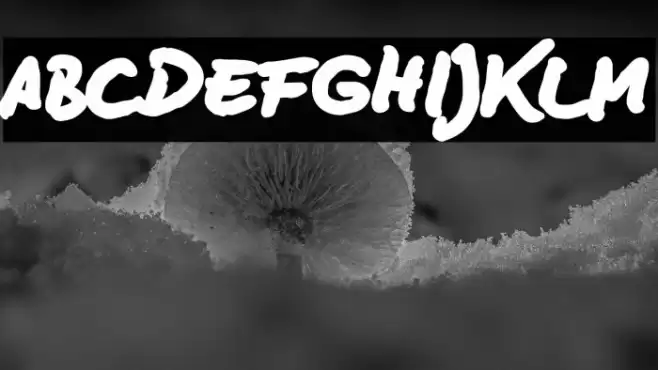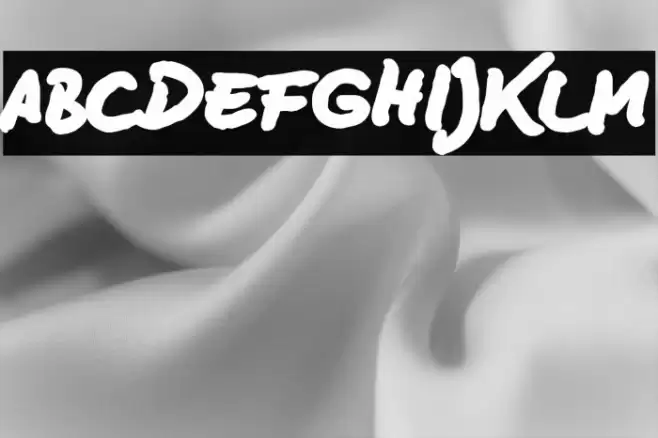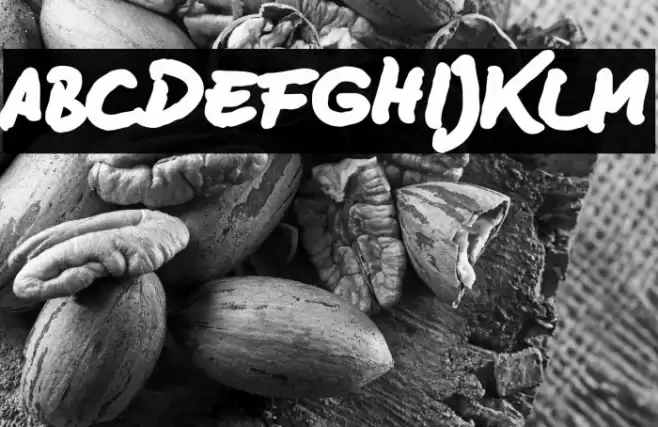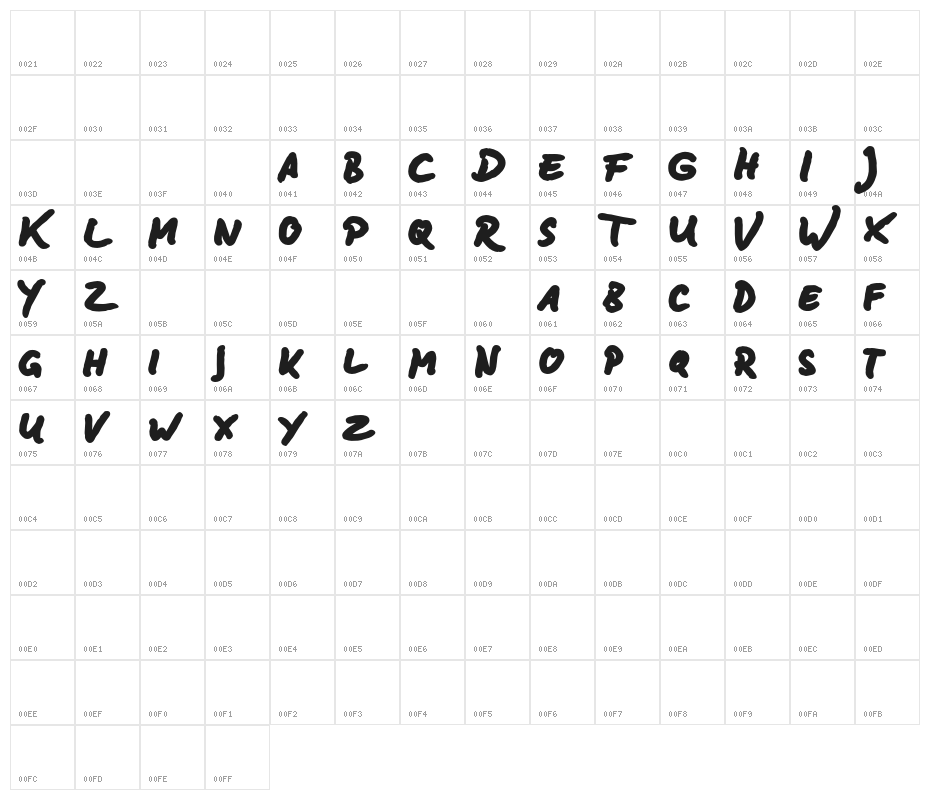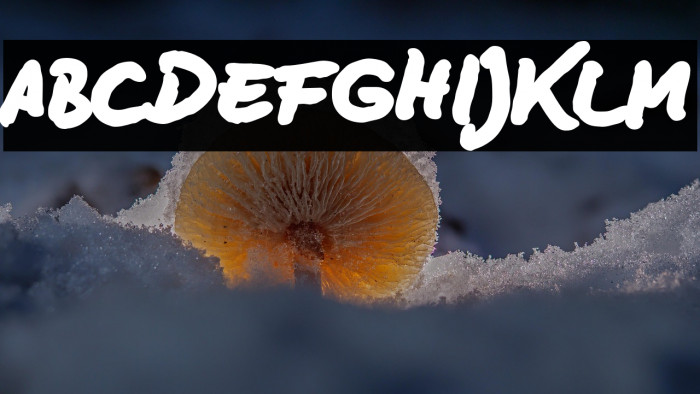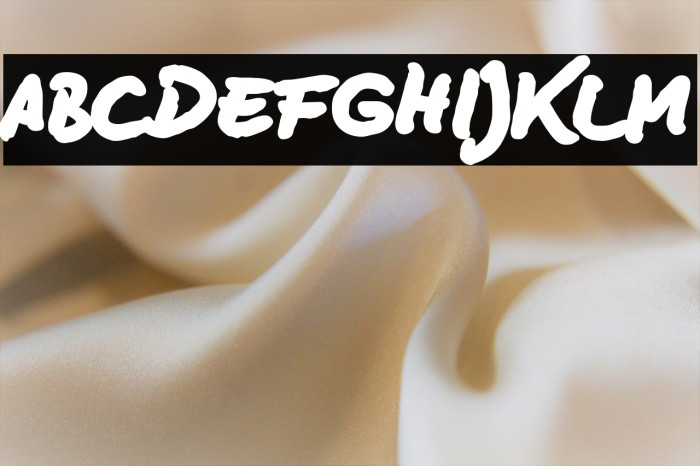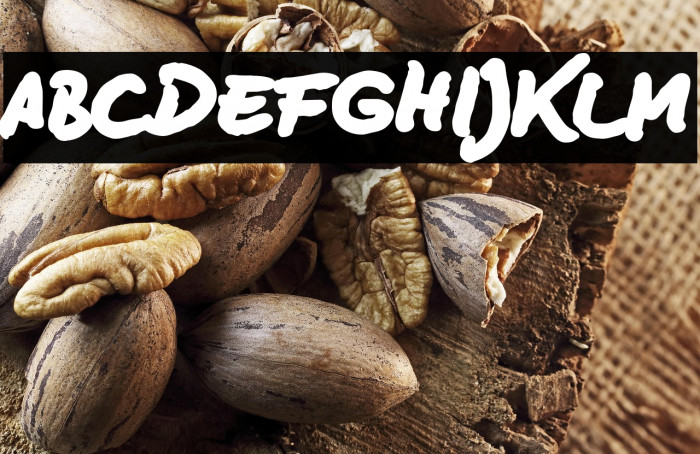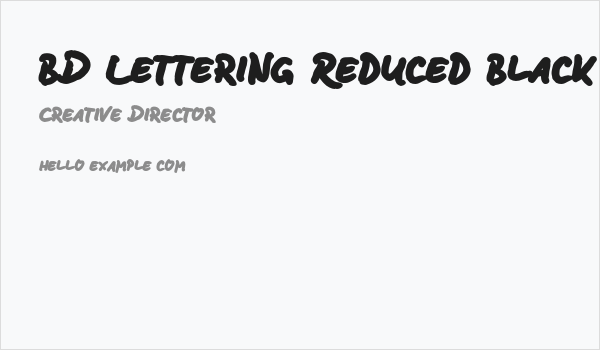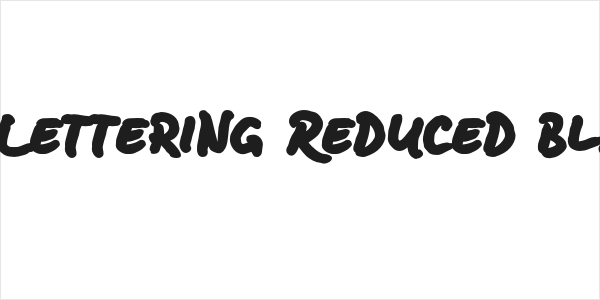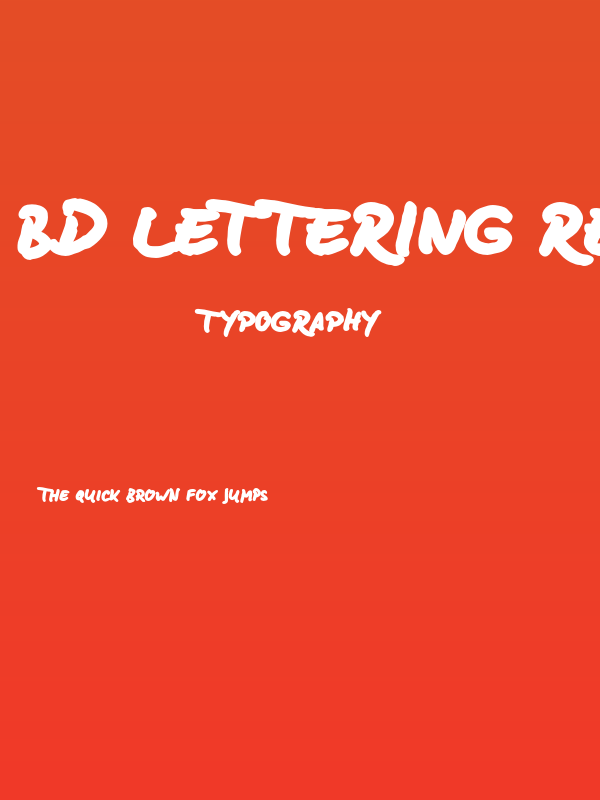
BD Lettering Reduced Black Font
BD Lettering Reduced Black Description
This font features a bold, expressive style with a handwritten appearance. The letters are thick and rounded, giving them a playful and dynamic look. The strokes are consistent in weight, providing a uniform and cohesive feel across all characters. The uppercase and lowercase letters maintain a similar style, enhancing readability while retaining a casual, artistic flair. The font's design is reminiscent of brush lettering, making it suitable for projects that require a personal touch or an informal tone. Its boldness ensures it stands out, making it ideal for headlines or attention-grabbing text.
A bold, handwritten-style font with a playful, brush-lettering appearance from Uncategorized fonts.
- Font: BD Lettering Reduced Black
- Proposed Projects: Ideal for posters, greeting cards, logos, and any design needing a personal, artistic touch.